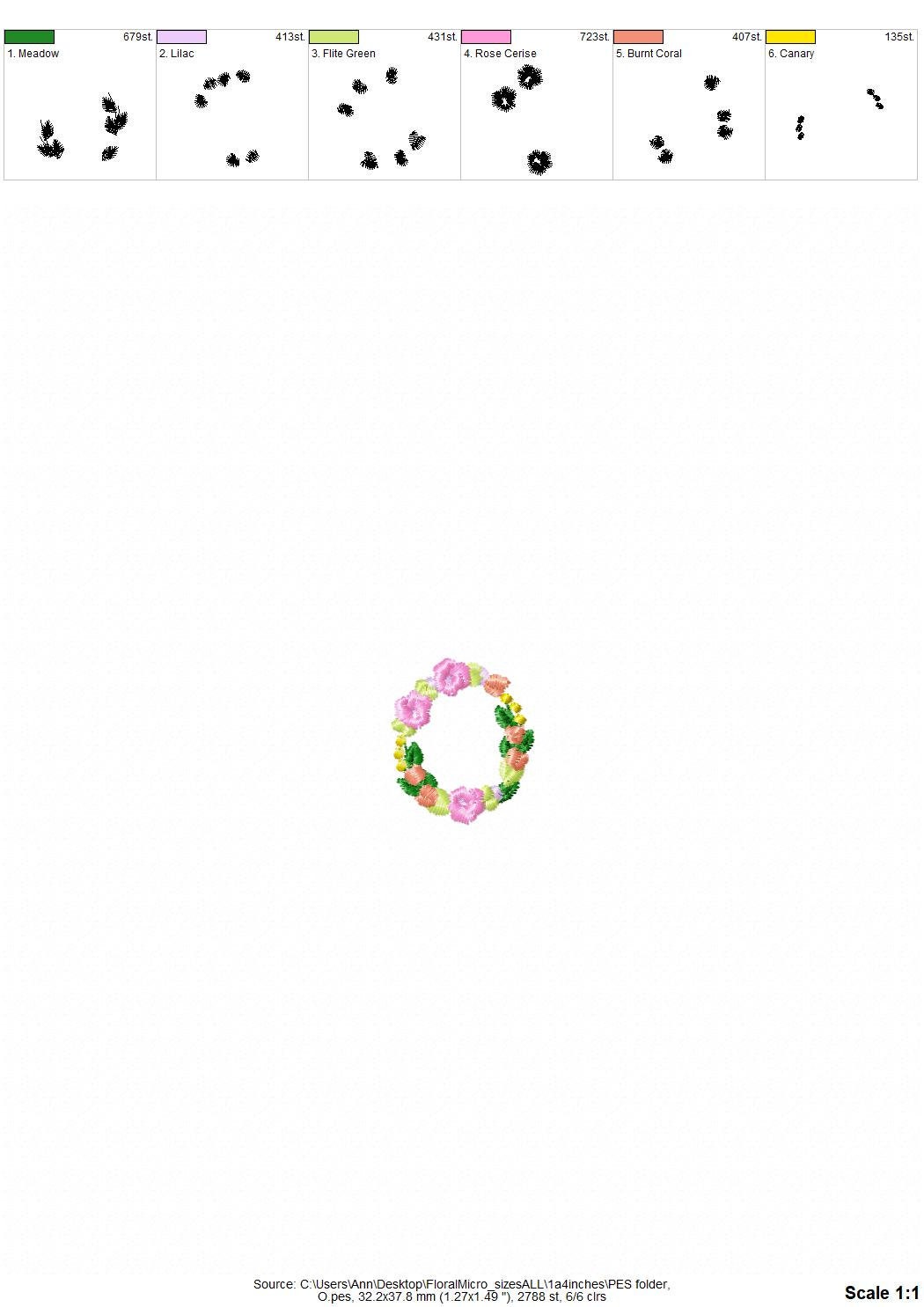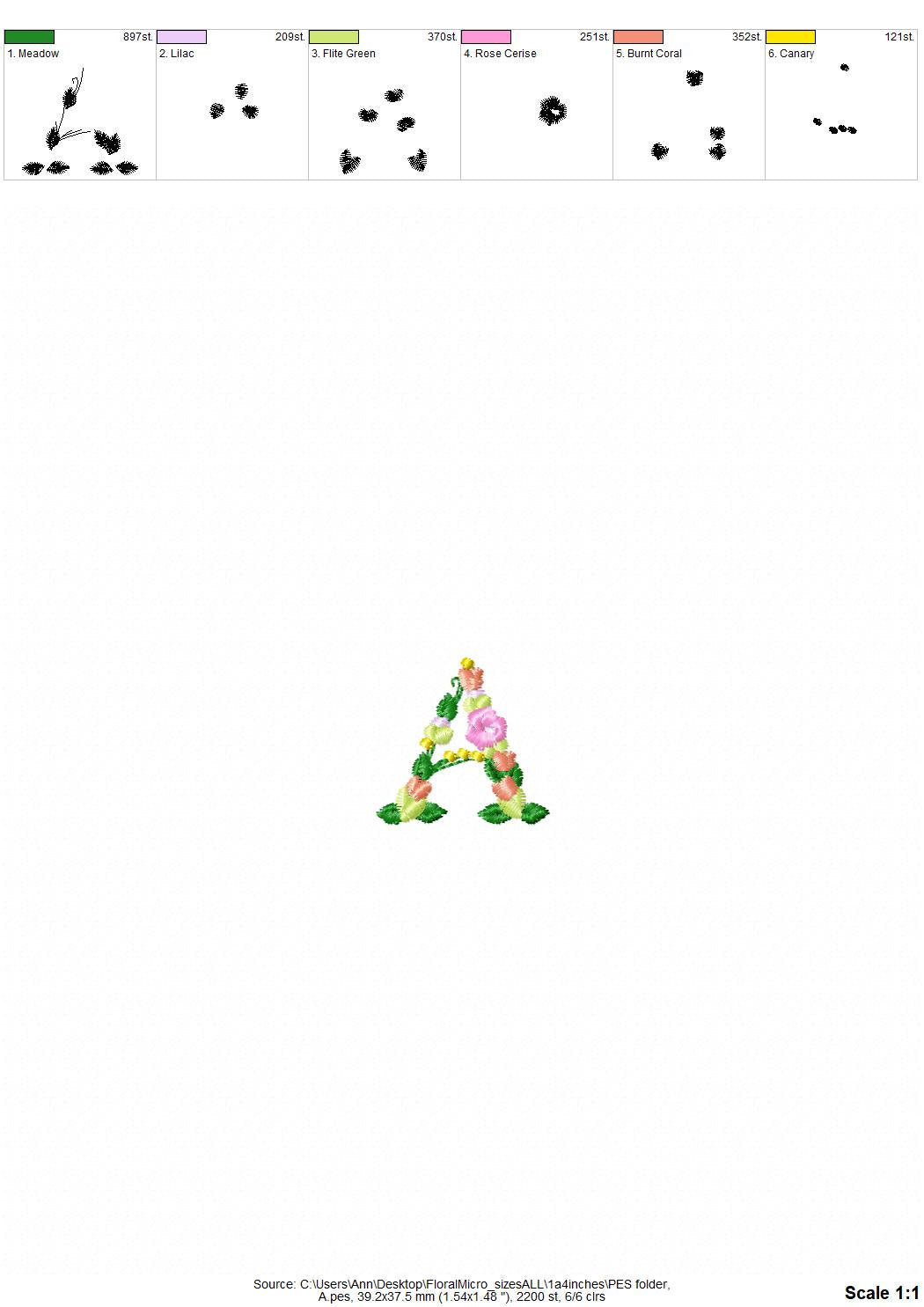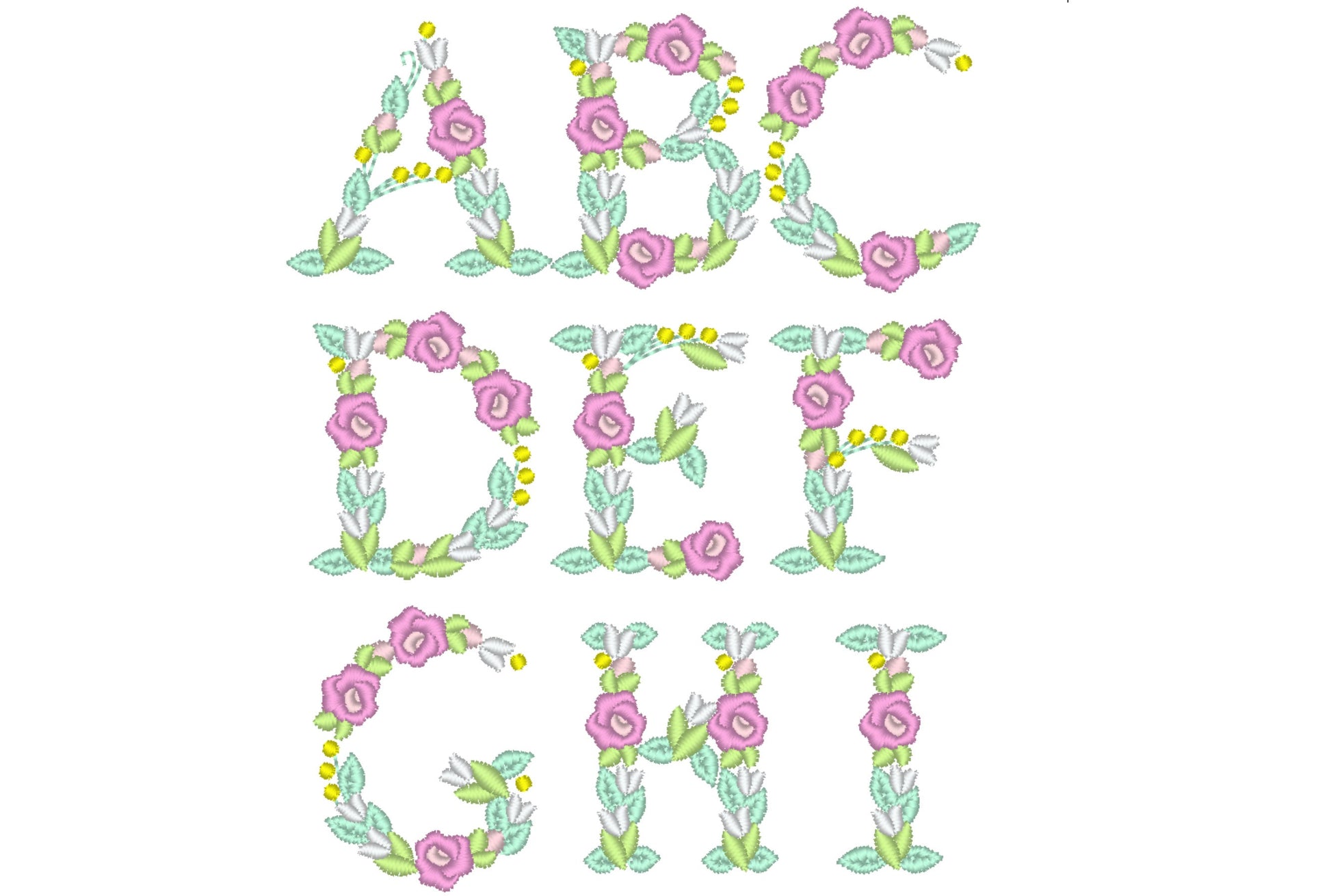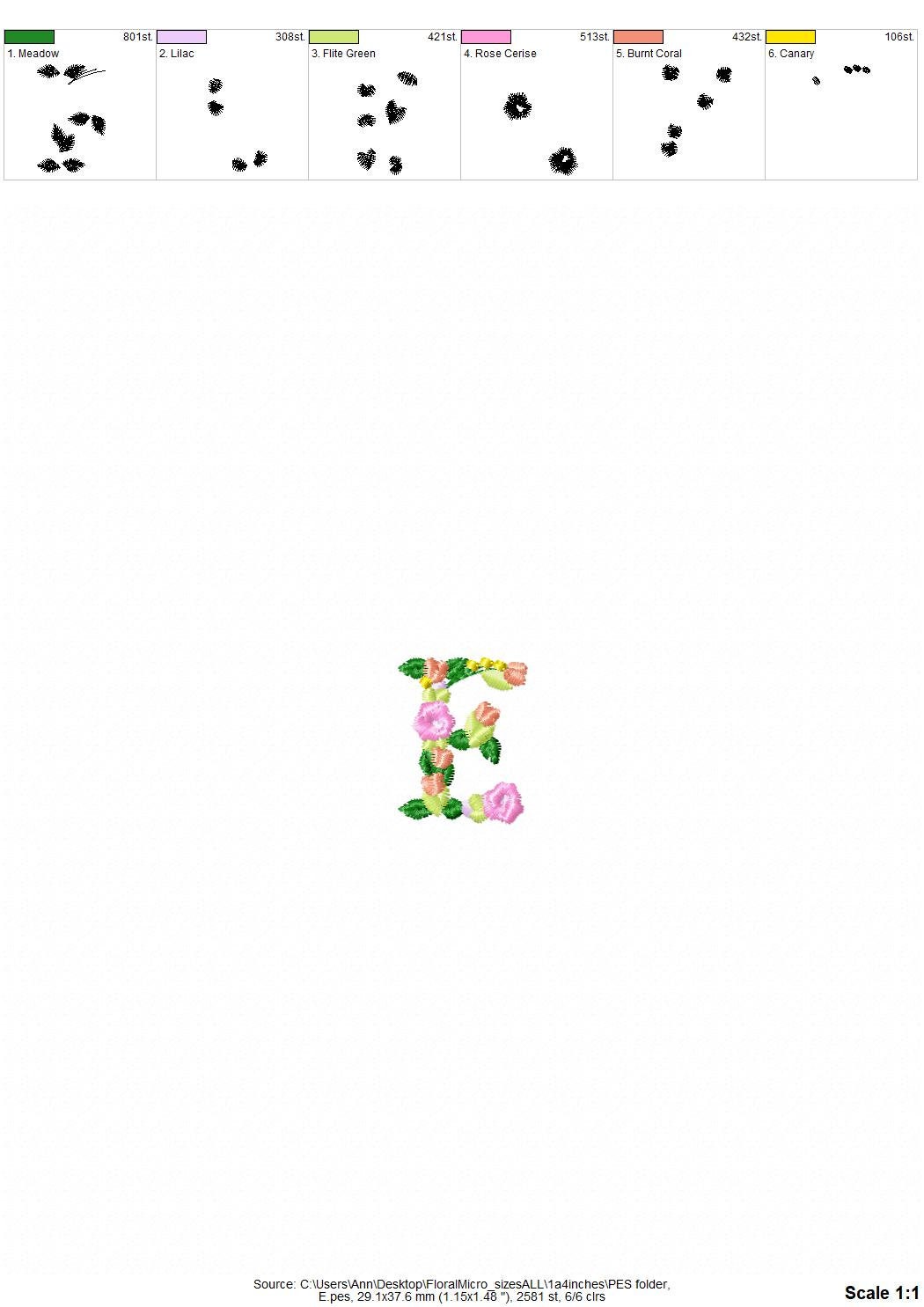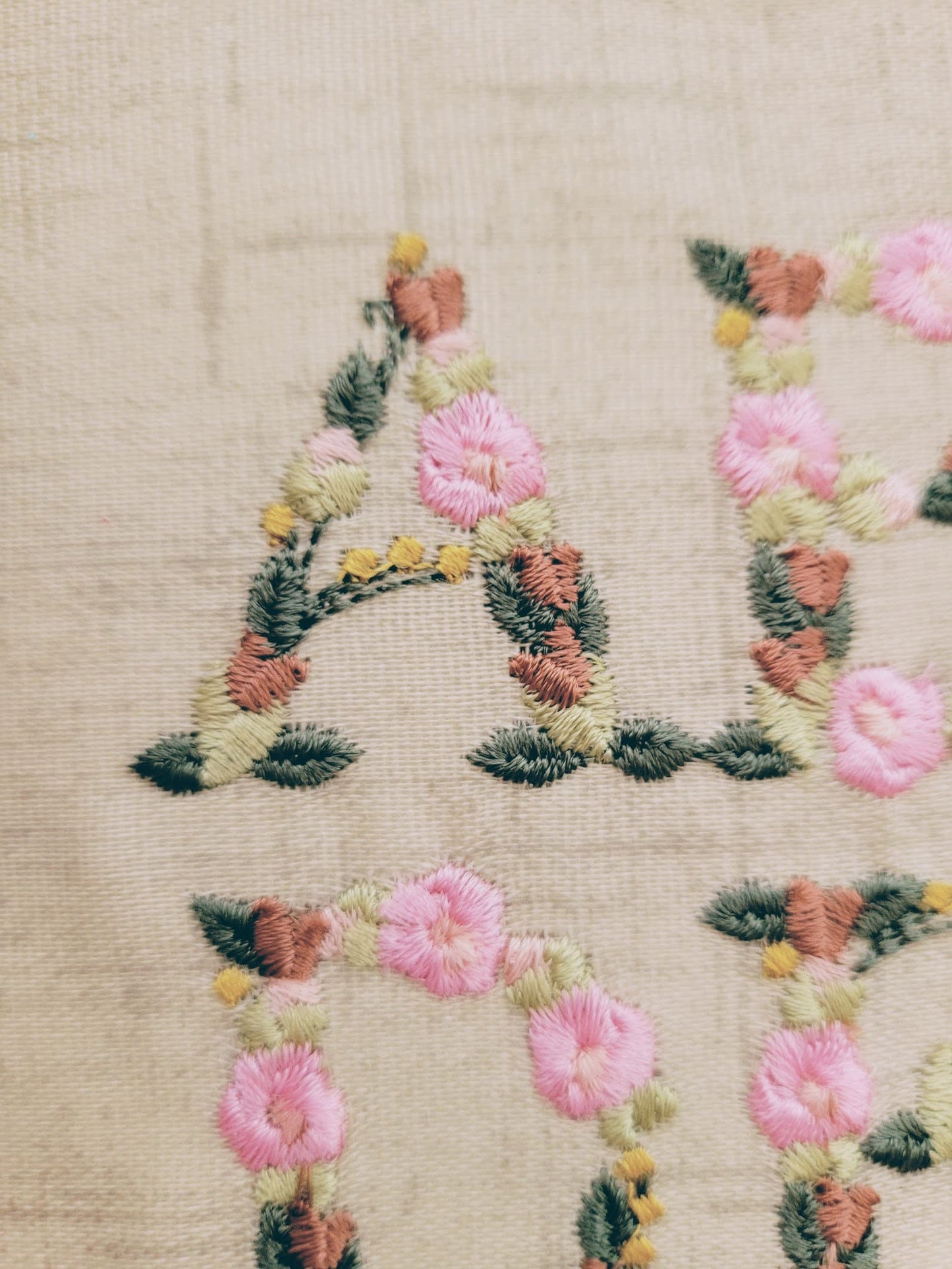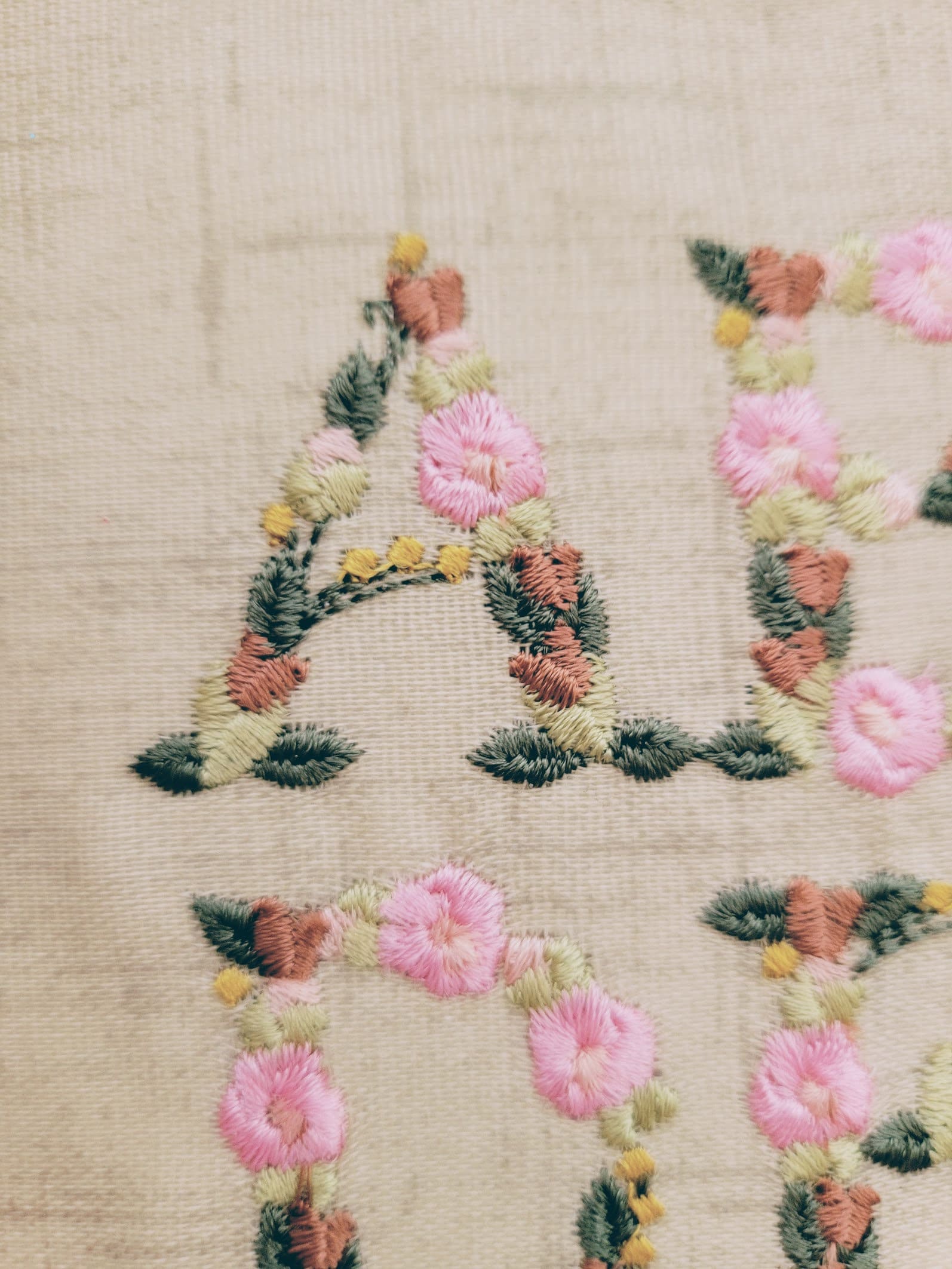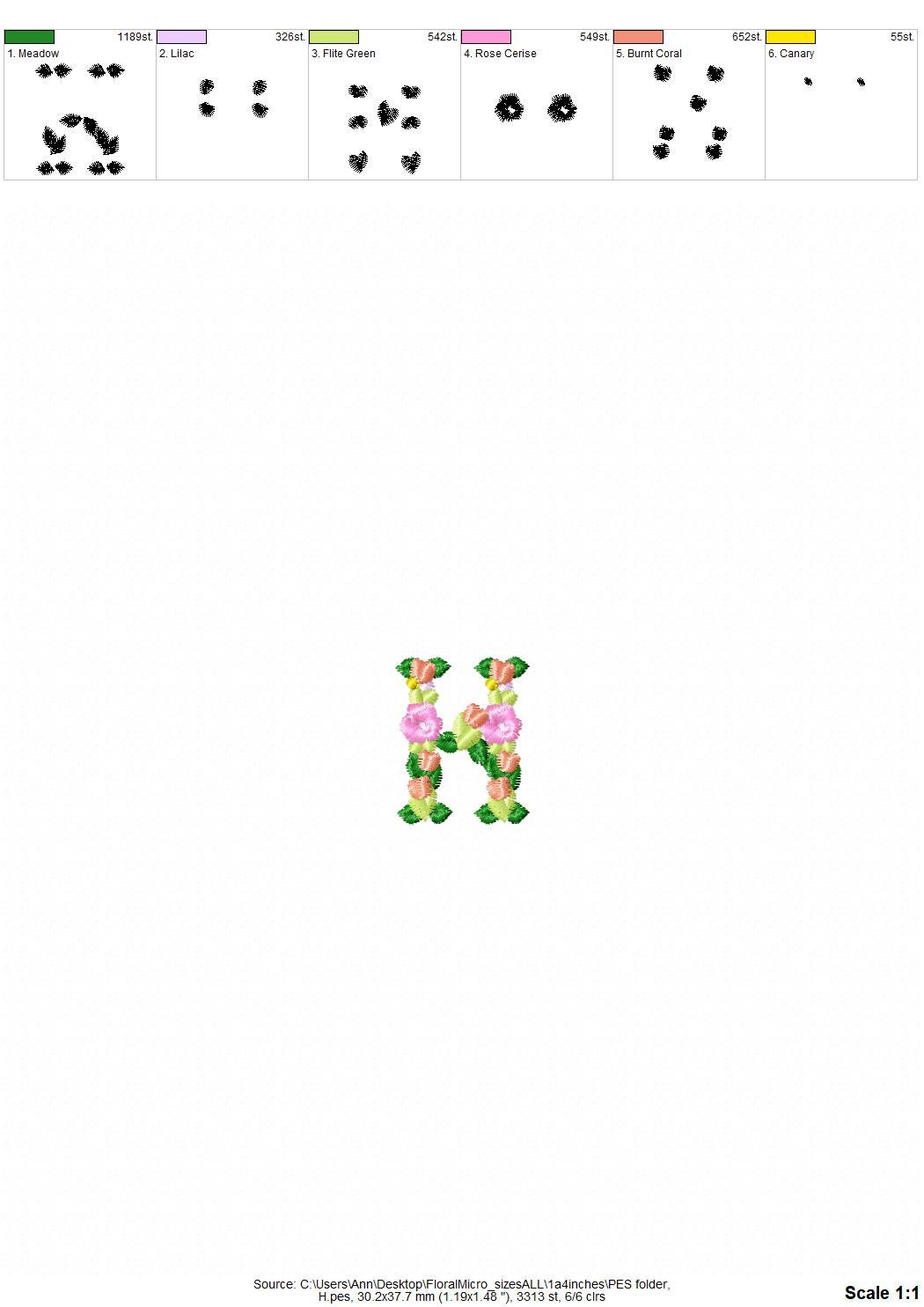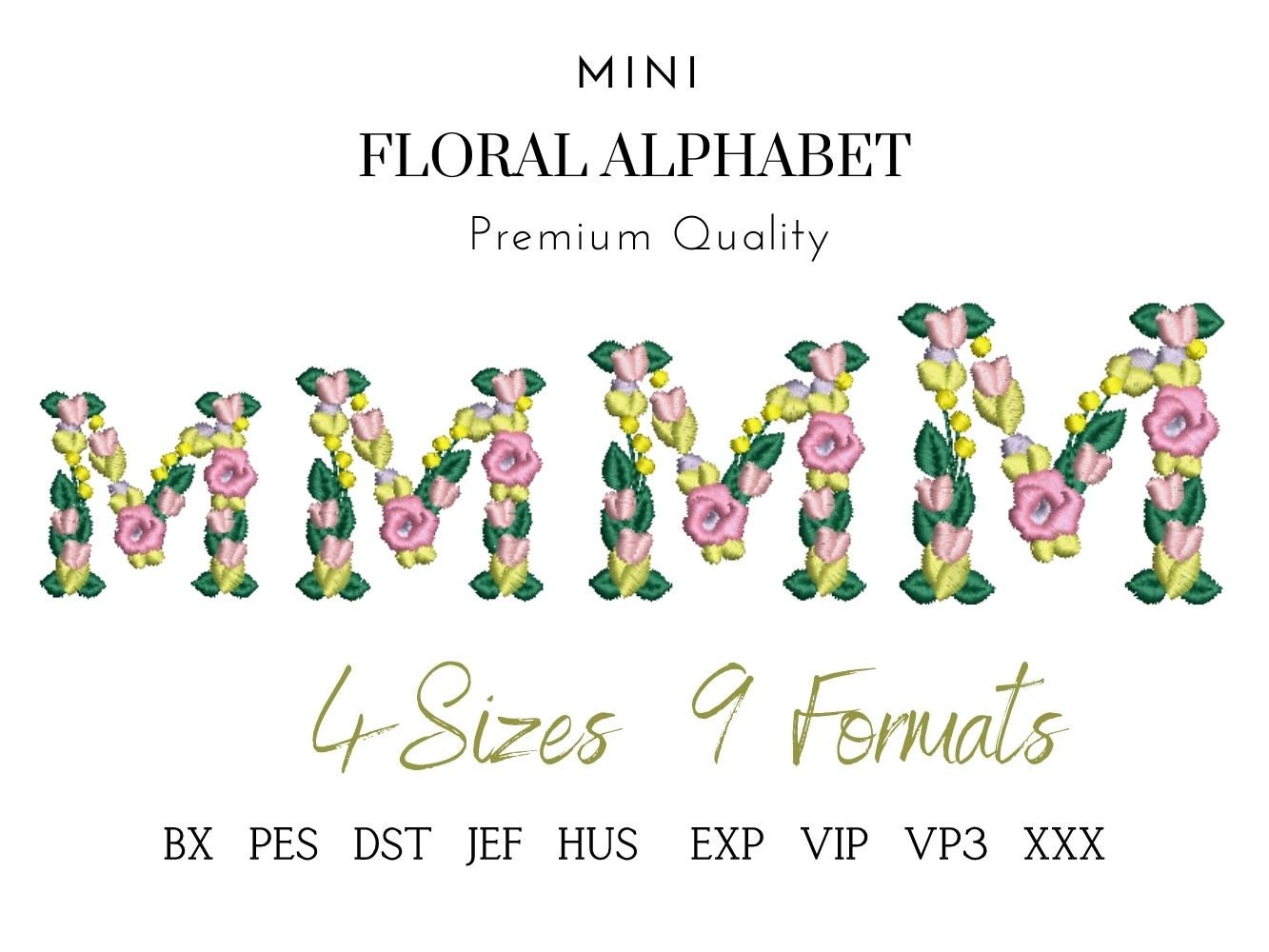
Mini Roses Floral Font
Or click to open the linkA mini liberty-style rose floral font, for small flower initials and names on baby items, pillows and gifts.
Letters A to Z decorated with little roses, in four small sizes: 1.45, 1.6, 1.85 and 2.1 inches.
- Mini rose floral font
- 26 letters, A to Z
- 4 sizes, 1.45 to 2.1 in